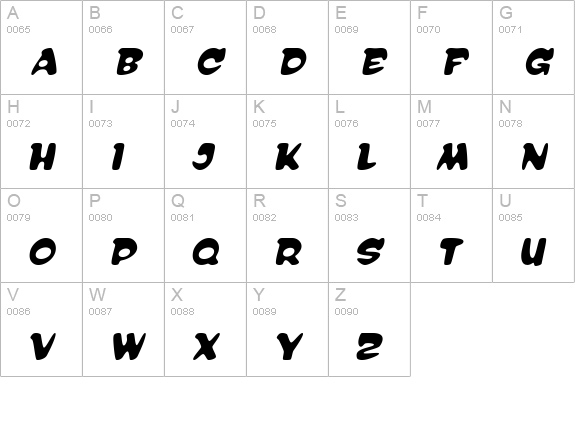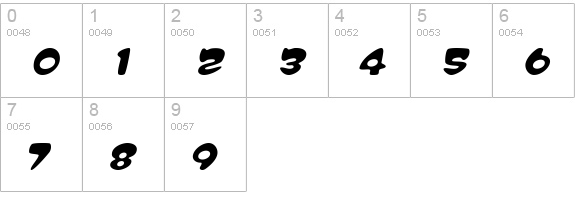
Reasonist-MediumItalic Font Details
Reasonist-MediumItalic is a captivating font that combines elegance with a touch of modernity. Its slanted, italicized design adds a unique flair to any project, making it perfect for capturing attention and adding a touch of sophistication. This font is not only visually pleasing, but also highly versatile. It can be used in a variety of design projects, such as logos, branding materials, advertisements, and more. Its medium weight strikes the perfect balance between legibility and style, making it suitable for both headings and body text. One of the most remarkable aspects of Reasonist-MediumItalic is that it is freely available to download at FontsMarket.com. This means that designers and creatives can enjoy the benefits of this exceptional font without any cost. Its availability for free download opens up endless possibilities for individuals and businesses looking to enhance their visual presence without breaking the bank. Whether you are an aspiring designer, a seasoned professional, or simply someone who appreciates aesthetically pleasing typography, Reasonist-MediumItalic is a must-have addition to your font library. Its versatility, elegance, and the fact that it is freely accessible make it an invaluable resource for all your creative endeavors. So don't hesitate to download Reasonist-MediumItalic from FontsMarket.com and elevate your designs to new heights.